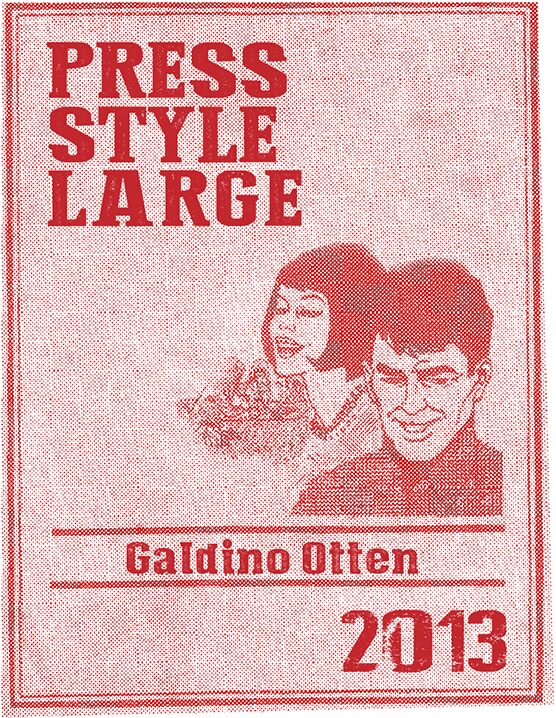
Press Style Large by Galdino Otten is a free eroded old-school display font with the force of vintage wood type. Broad slab serifs and tightly fitted forms make the words feel dense and emphatic. The scattered wear is coarse and irregular.
Sports bars, burger shops, and independent record labels are a natural audience for its blunt industrial look, especially across restaurant branding, event posters, merchandise, and food packaging. In those settings, the distressed letters can become part of a stamped sign or printed badge rather than simple labeling.
Press Style Large
Galdino Otten